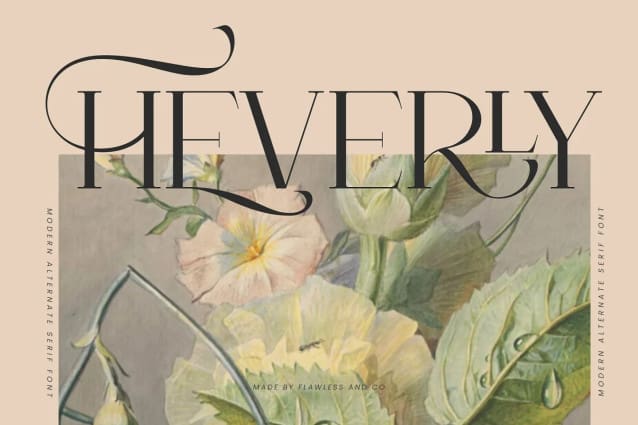
Heverly Font
Heverly Font  – A Modern Alternate Serif Typeface. Unleash the power of modernity intertwined with classic charm with “Heverly,” a striking alternate serif font that goes beyond mere letters, offering a canvas for your creativity to flourish. This serif typeface is more than letters on a page; it’s a journey into a world where every curve and line tells a story of both nostalgia and innovation.